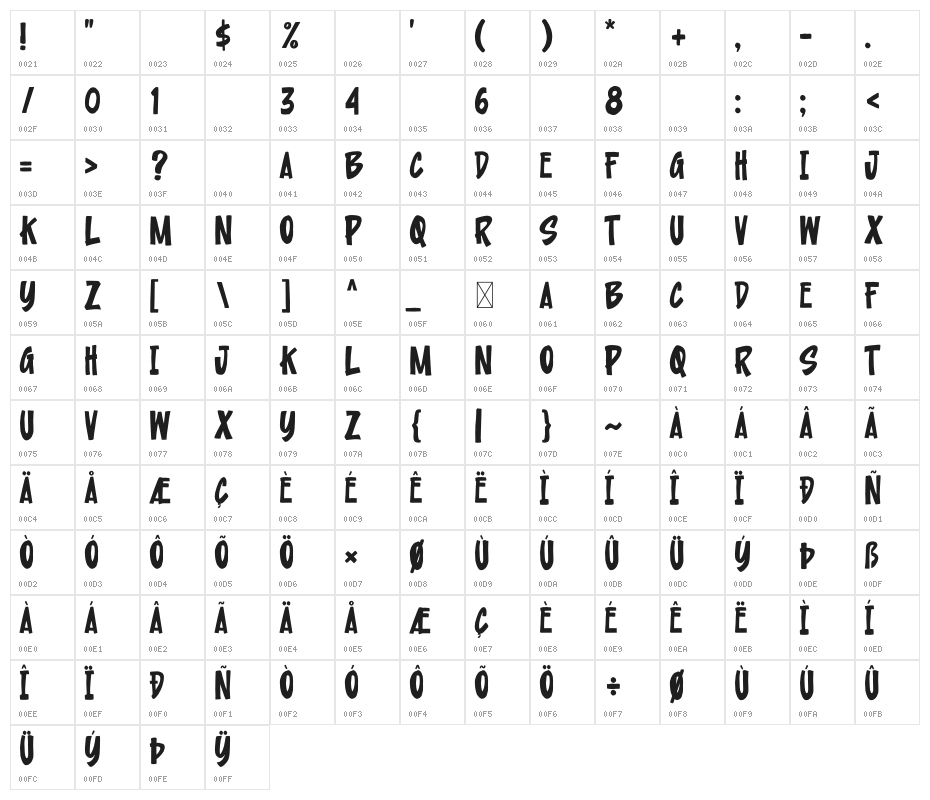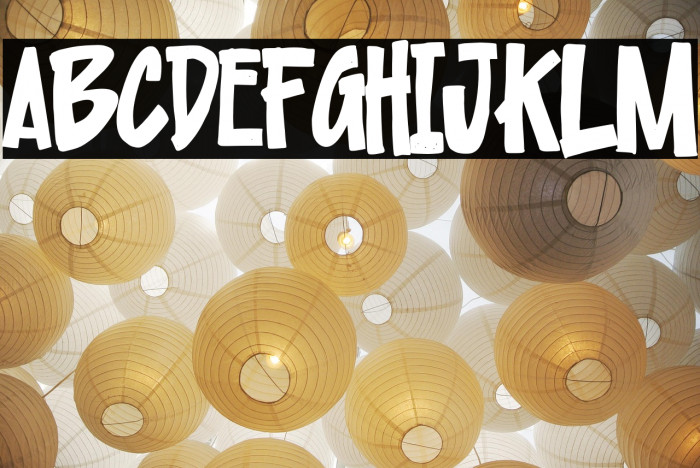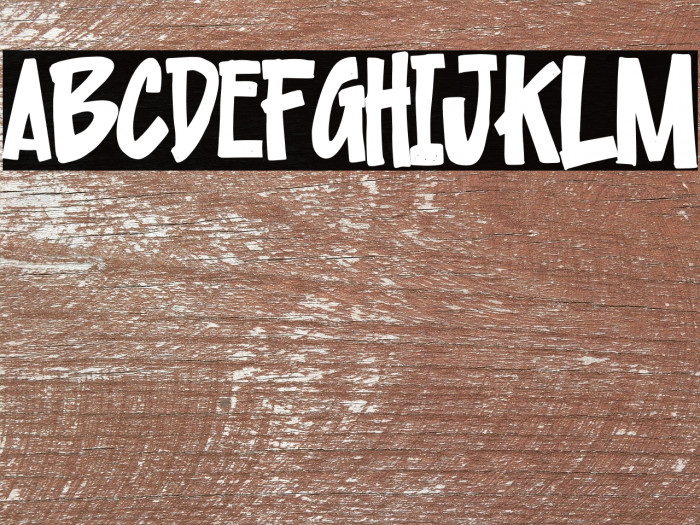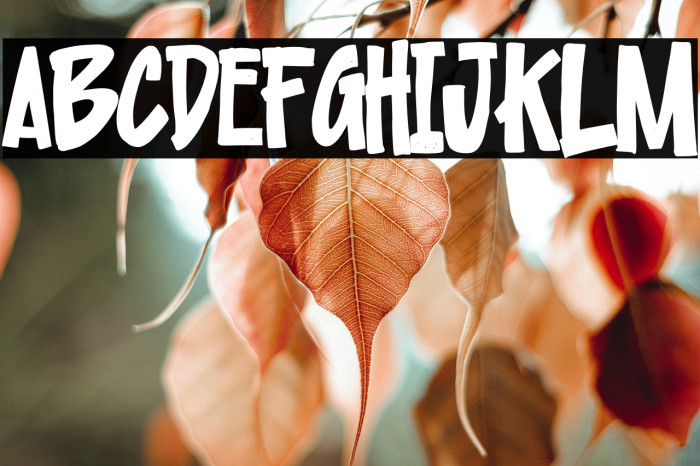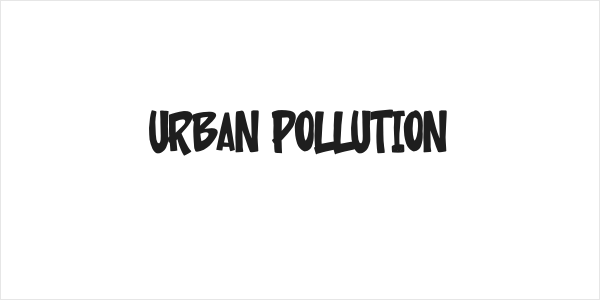
Urban Pollution Font
Urban Pollution Description
This font features a bold and expressive style with thick, uneven strokes that give it a hand-drawn, graffiti-like appearance. The characters are slightly slanted, adding a dynamic and energetic feel. The uppercase and lowercase letters maintain a consistent style, with exaggerated curves and angles that enhance its playful and informal nature. The numbers and special characters follow the same bold and irregular design, making the font suitable for eye-catching and creative projects. Its unique style is perfect for conveying a sense of urban flair and artistic expression.
| Overall Style | Urban, Artistic, Playful |
| Proposed Projects | Ideal for street art designs, posters, album covers, and urban-themed branding. |